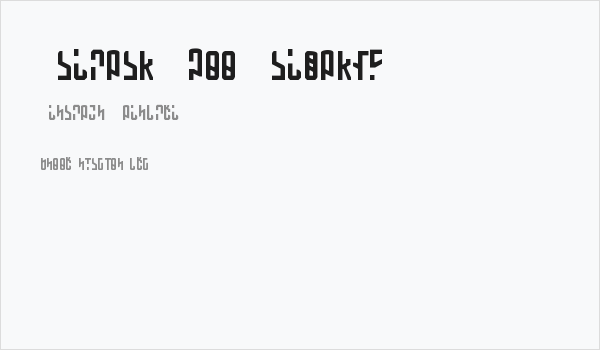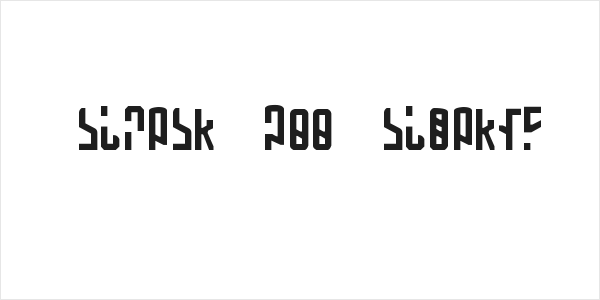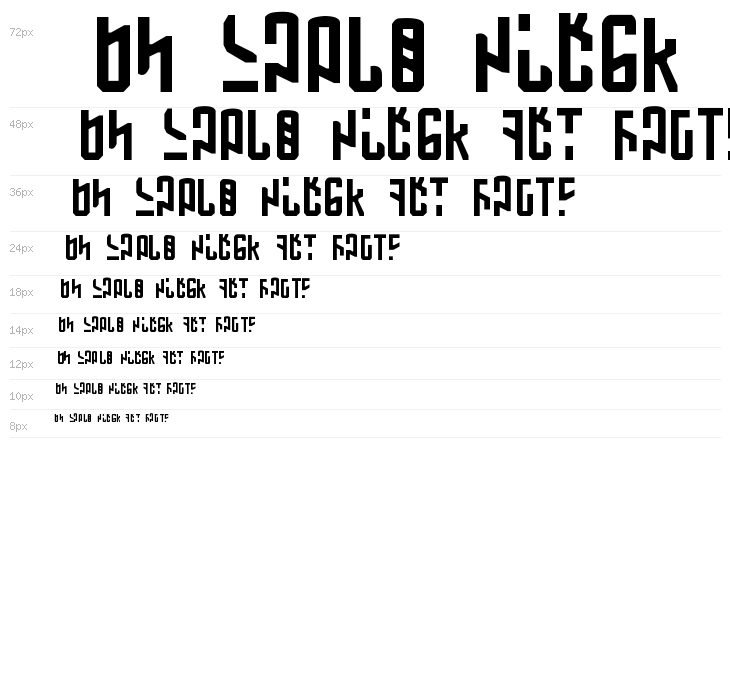
Martian Hull Markings Font
Martian Hull Markings Description
This font features a futuristic and geometric design, characterized by sharp angles and bold lines. The characters are constructed with a consistent thickness, giving a uniform appearance across all letters and symbols. The style is reminiscent of alien or sci-fi themes, with a distinct, otherworldly aesthetic. The characters are tightly spaced, enhancing the compact and cohesive look. This font is ideal for projects that require a modern and unconventional typeface, such as science fiction book covers, video game interfaces, or themed event posters. Its unique style makes it stand out, capturing attention with its bold and striking appearance.
| Use Case | Logos, Headlines |
| Proposed Projects | Ideal for sci-fi book covers, video game interfaces, and themed event posters. |